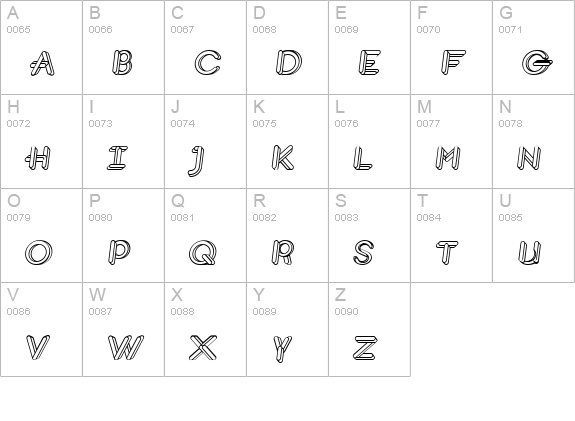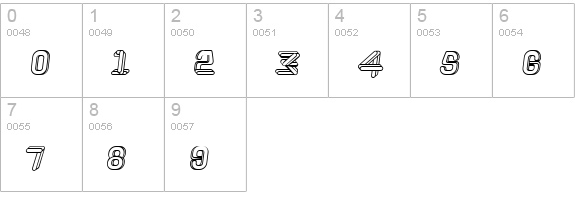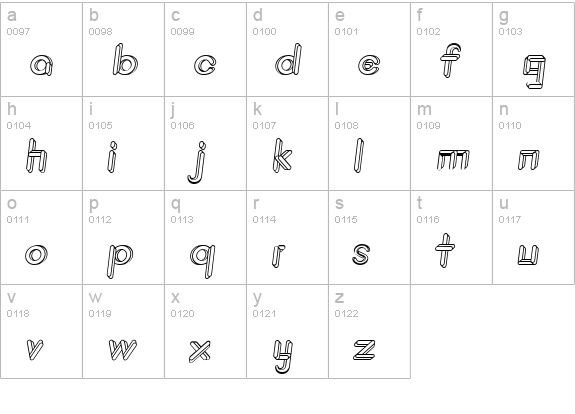
JohanVaaler BoldItalic Font Details
Introducing the magnificent JohanVaaler BoldItalic font, a true embodiment of elegance and sophistication. This exquisite typeface effortlessly blends boldness and italics to create a striking visual impact that will captivate any audience. JohanVaaler BoldItalic font boasts a unique and eye-catching design that sets it apart from ordinary fonts. Its beautifully curved letterforms exude a sense of confidence and style, making it perfect for projects that demand attention and a touch of modernity. The bold weight adds a strong presence to your designs, while the italic slant adds a touch of elegance and fluidity. With its versatility and timeless appeal, JohanVaaler BoldItalic font is a must-have for various creative projects. Whether you're designing a logo, crafting a poster, or creating a stylish packaging, this font will effortlessly elevate your design to new heights. And the best part? JohanVaaler BoldItalic font is freely available to download at FontsMarket.com. This means that you can bring its stunning aesthetic to your designs without any cost. Simply head over to FontsMarket.com, and with just a few clicks, you can access this remarkable font and start creating stunning designs that will leave a lasting impression. Don't miss the opportunity to enhance your design projects with the captivating JohanVaaler BoldItalic font. Download it for free today at FontsMarket.com and unlock the potential to create visually stunning and impactful designs that will stand out from the crowd.